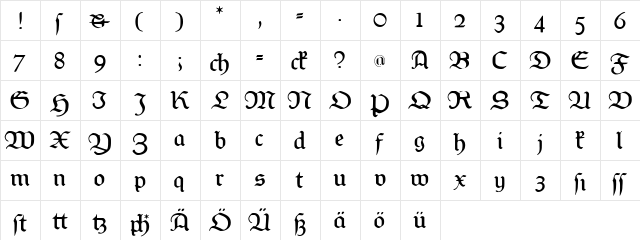
Weiss-Fraktur Regular
Design Context for Weiss-Fraktur Typeface
Weiss-Fraktur channels the dramatic heritage of Fraktur and Gothic scripts, bringing a sense of historical gravitas to any design.
A natural fit for music packaging, gothic editorial design, and any project that needs historical weight.
Font Pairing: Pair with a clean neutral sans-serif for body copy to let Weiss-Fraktur's character lead without overwhelming the composition.
Pro Tip: Reserve Weiss-Fraktur for display and logo use — pair it with a clean sans-serif for body copy to prevent the composition from feeling oppressive.